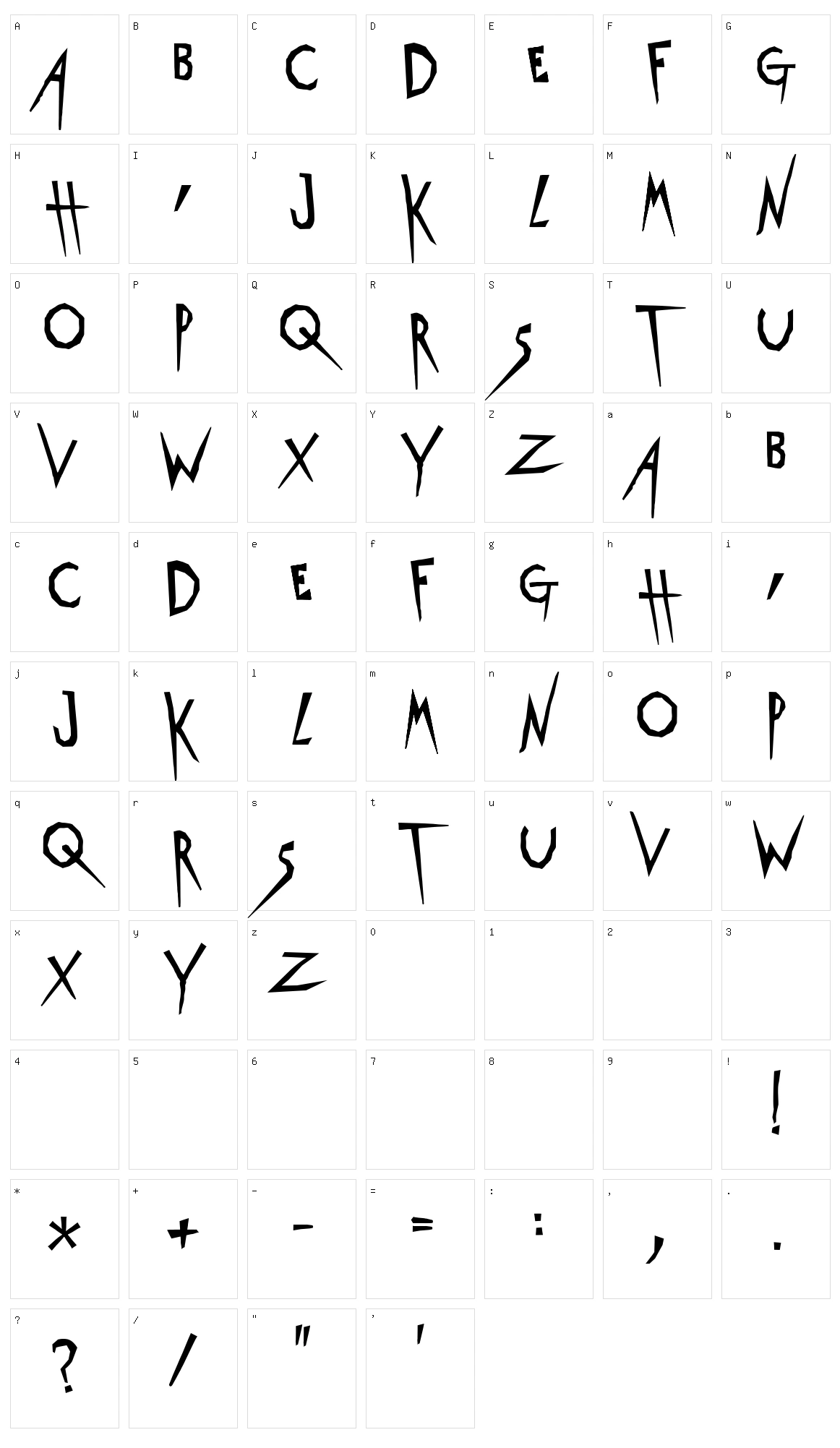
The free font Metropolitan is carefully designed by Empire of Dust, showcasing a thoughtful balance of creativity and usability and falls under the Distorted font style. When you download the ZIP file, it contains only 14.51 KB of font files, making it lightweight and quick to download. Please review the license details below to understand permitted usage and distribution rights. If license information is not available, we recommend using this font for personal projects only or contacting the author directly for commercial usage permissions.